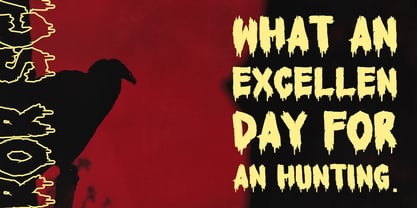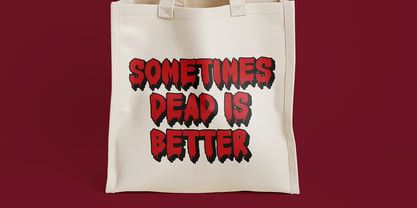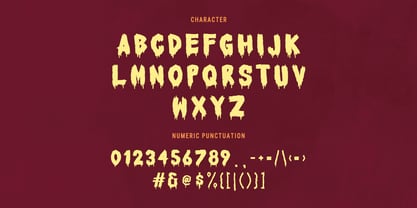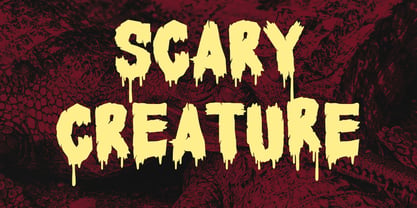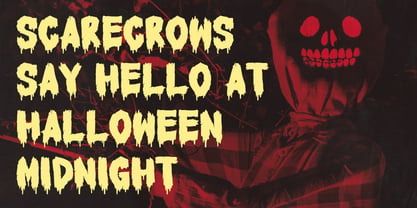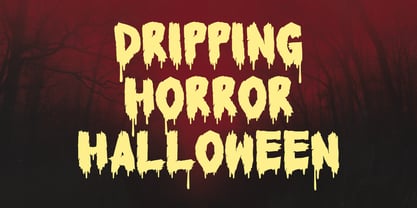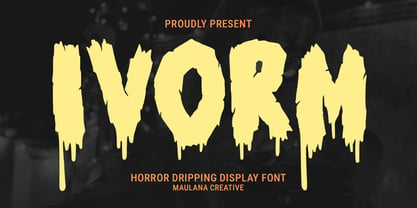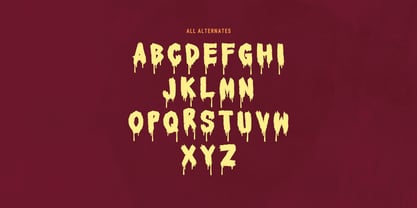
MC Ivorm
by Maulana Creative
The MC Ivorm Font Family was designed by Gilang Maulana and published by Maulana Creative. MC Ivorm contains 1 styles. More about this family
Ivorm is a bold horror dripping display font that brings a chilling, blood-curdling effect to any design. With its thick, heavy strokes and melting drip details, this typeface perfectly captures the essence of gore, slime, and horror. Ideal for Halloween, scary movie titles, haunted house, creepy, game logos, or any dark-themed project, Ivorm adds instant shock value and a terrifying atmosphere. Its dripping style makes it look alive, as if letters are bleeding or melting right off the screen.
Designers: Gilang Maulana
Foundry: Maulana Creative